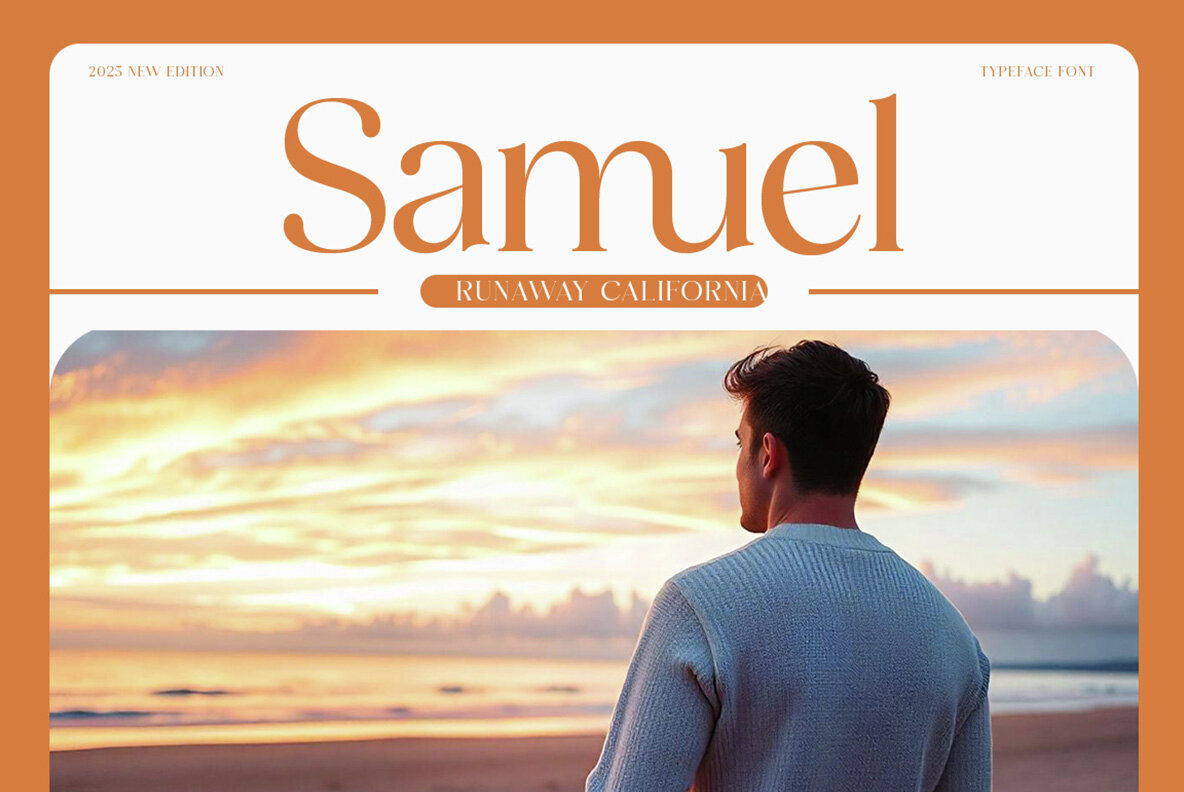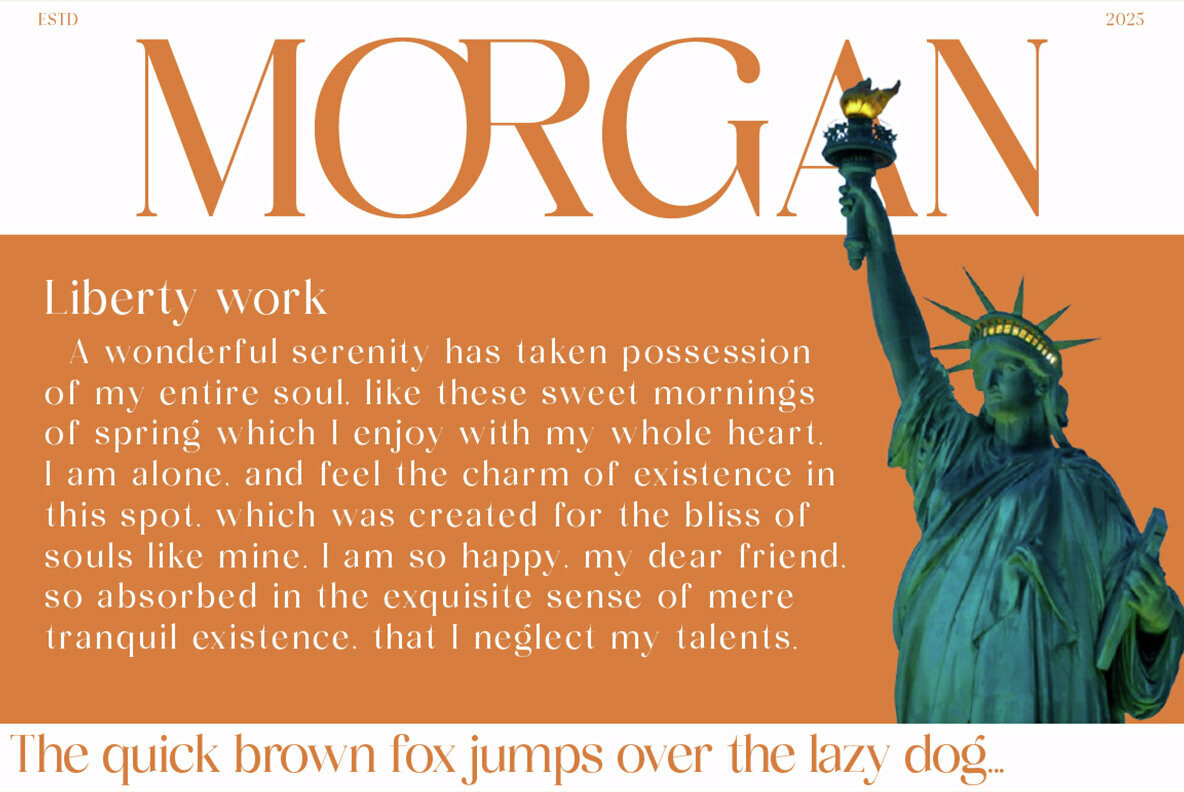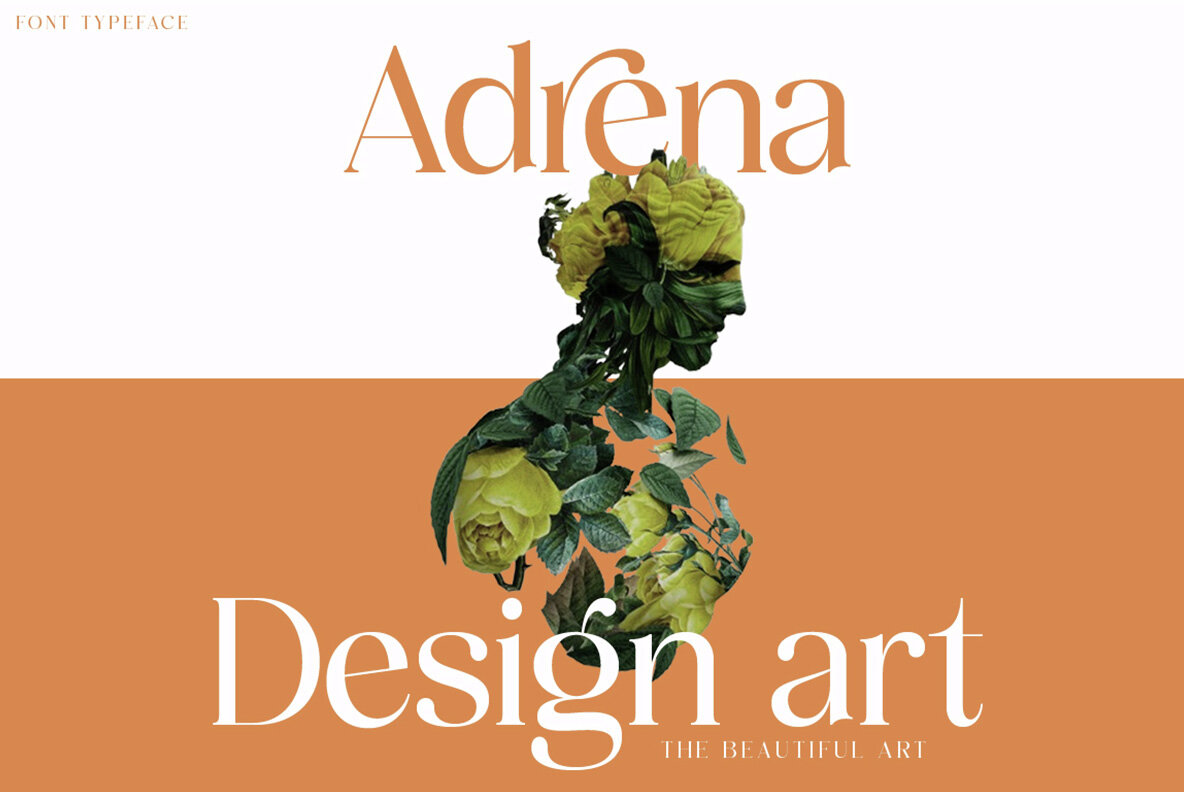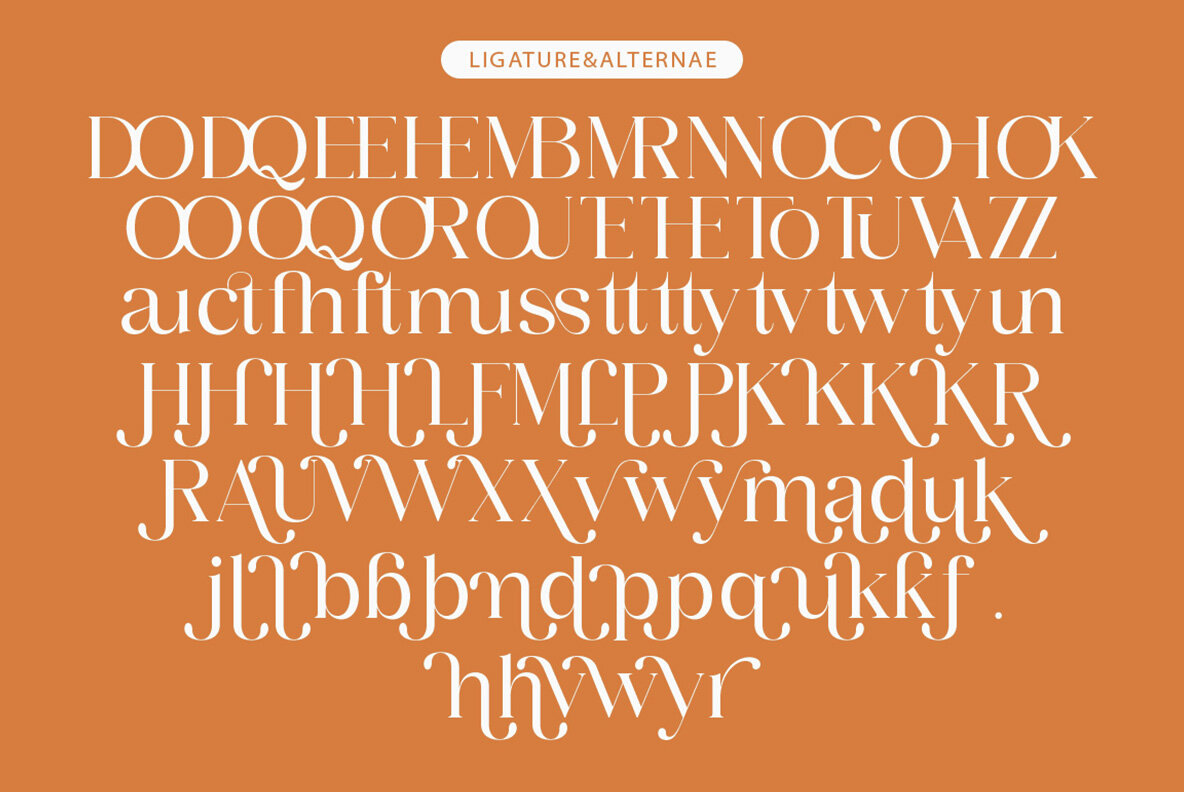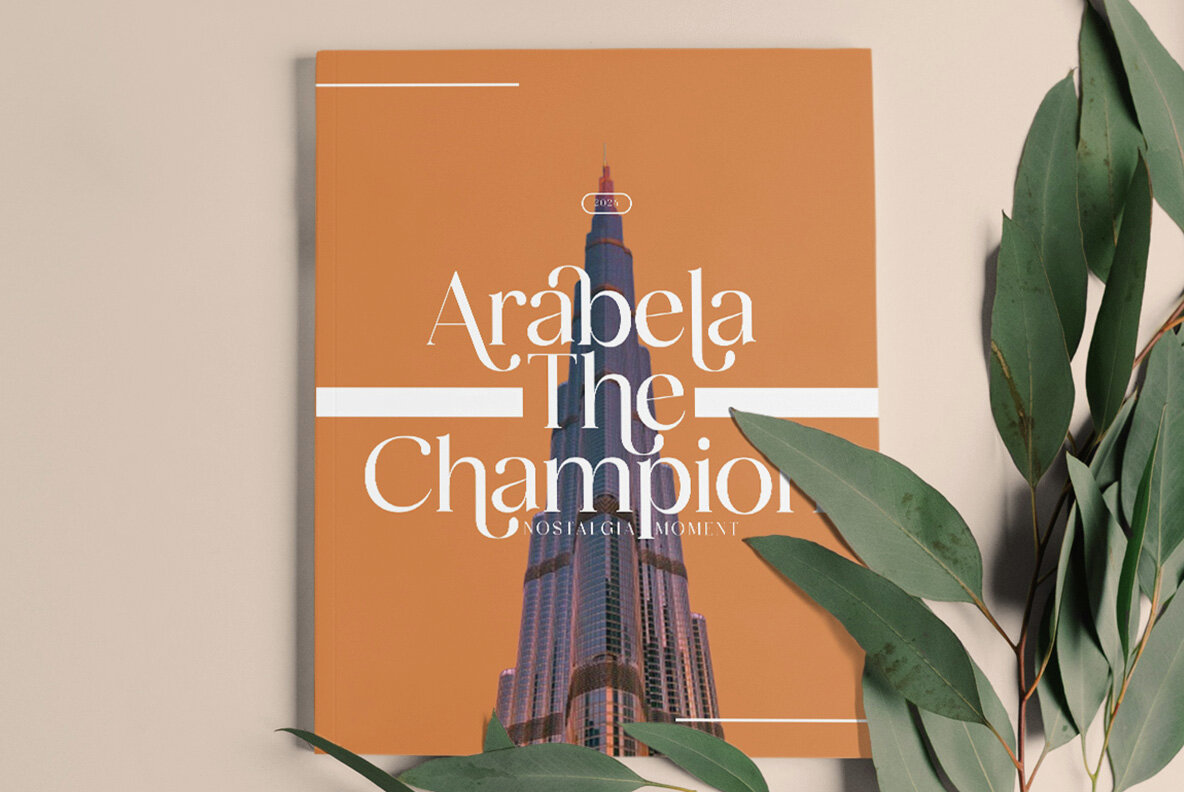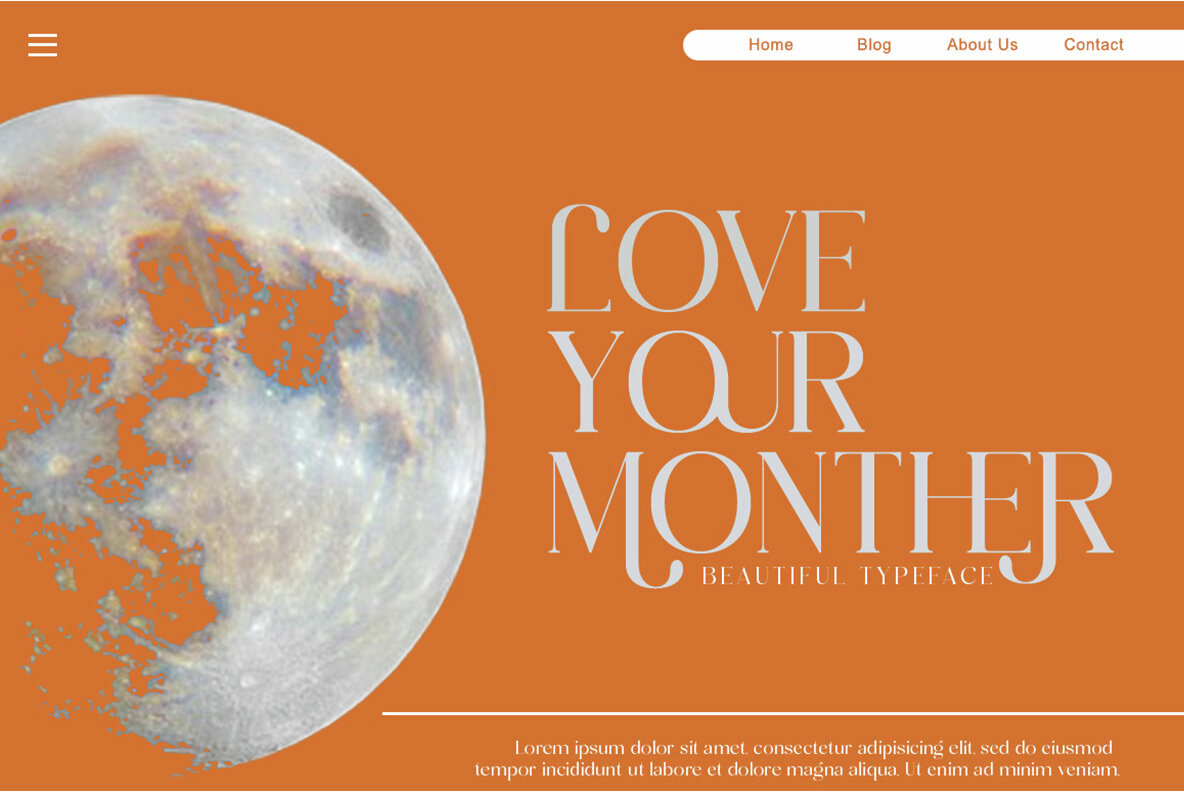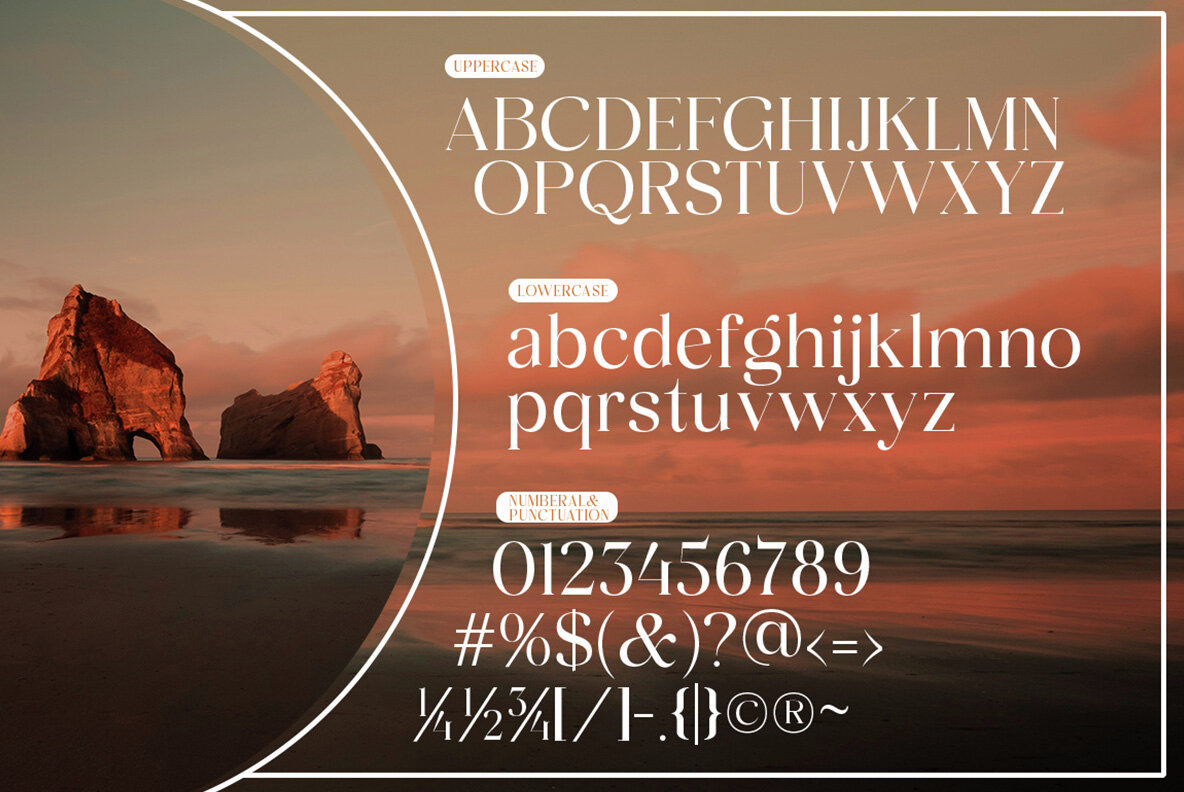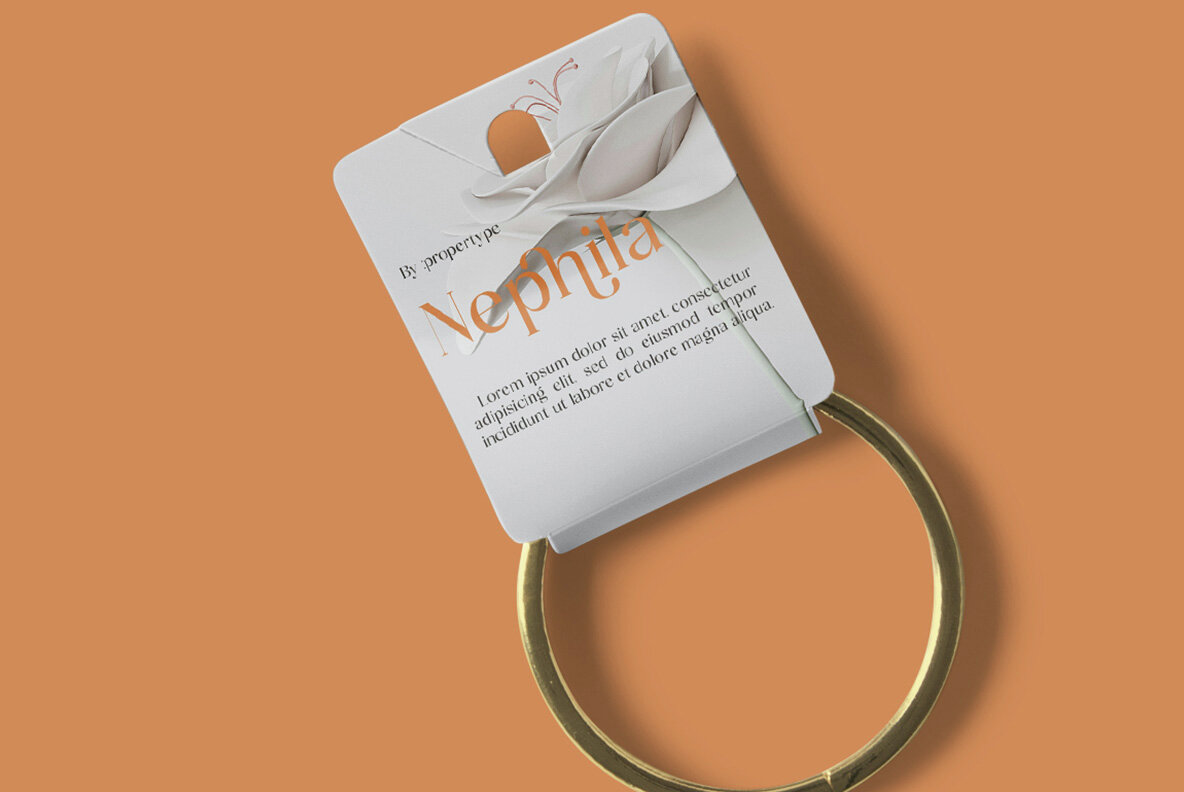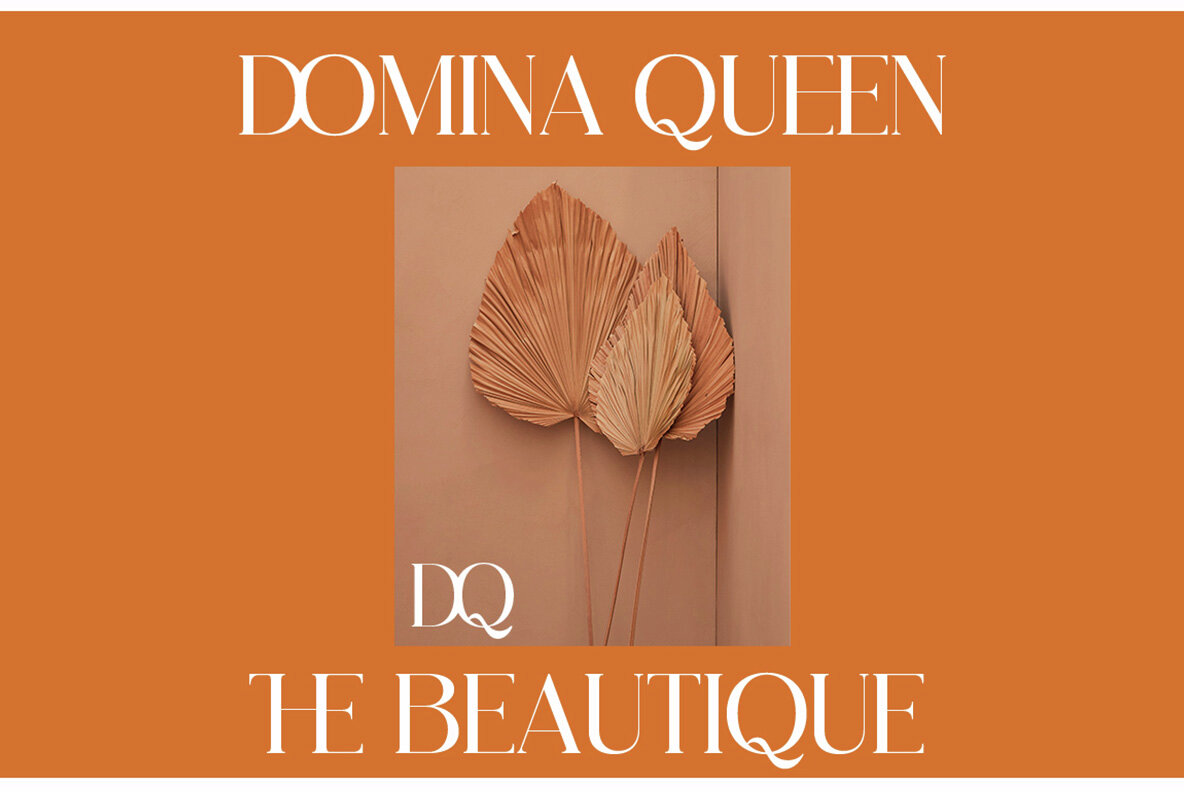
Aihuner Font
Aihuner Regular
Aihuner is a modern display serif typeface that infuses traditional serif elements with a contemporary twist. It features sharp, dynamic strokes complemented by smooth, pointed serifs, creating strong contrasts that deliver a bold yet graceful aesthetic. The typeface offers both functional and experimental glyphs, providing a versatile range suitable for diverse design projects.
Ideal for designers seeking to produce clean and sophisticated work, Aihuner excels in an array of applications. Whether crafting headlines, designing magazine spreads, creating logos, working on packaging, or developing editorials, this typeface adapts seamlessly to a variety of styles. Its blend of nostalgic elegance with a fresh approach makes it a strong choice for any project aiming to make a lasting impression.